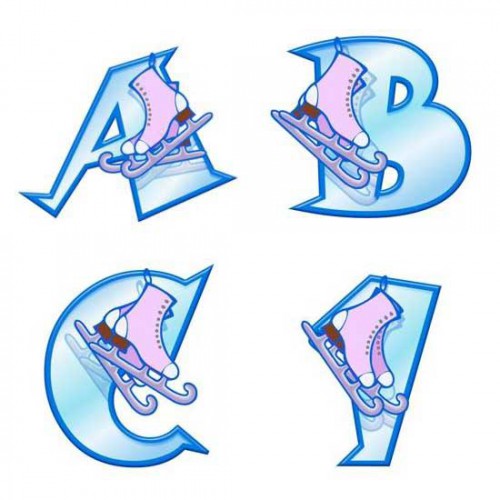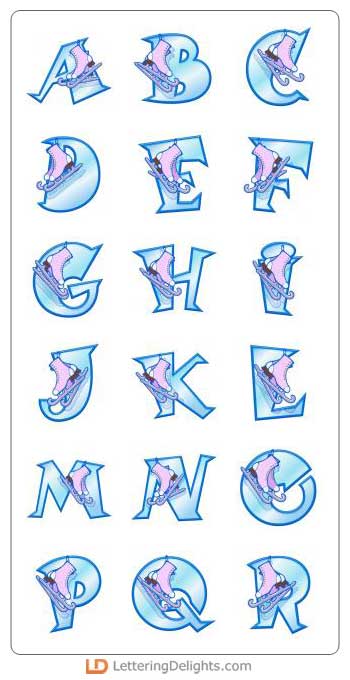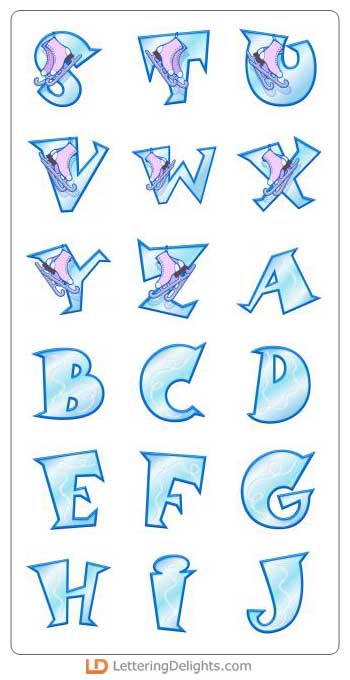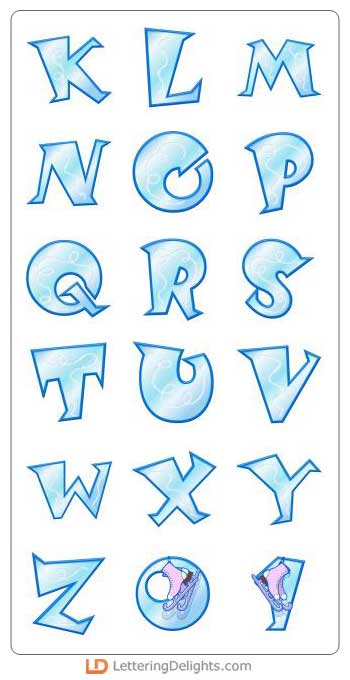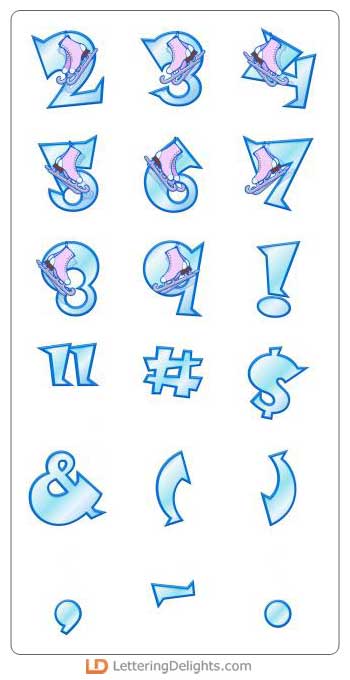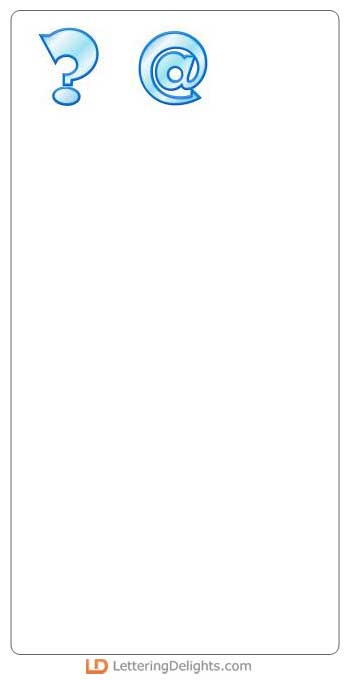
Strap on those skates and head to the rink. Soon you'll be doing the triple lutz! Do you have a budding Olympic skater in your life? Use this alphabet to create fantastic scrapbook pages, bulletin boards, titles or newsletter embellishments. Personalize gift bags, invitations, thank you notes, and favors for a skating themed birthday party.